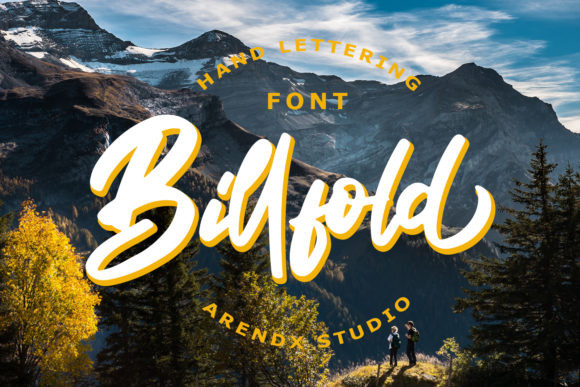
Billfold Font
Billfold is a fun and cool script with a vintage style. Get inspired by its unique style, and turn any design idea into a true standout!